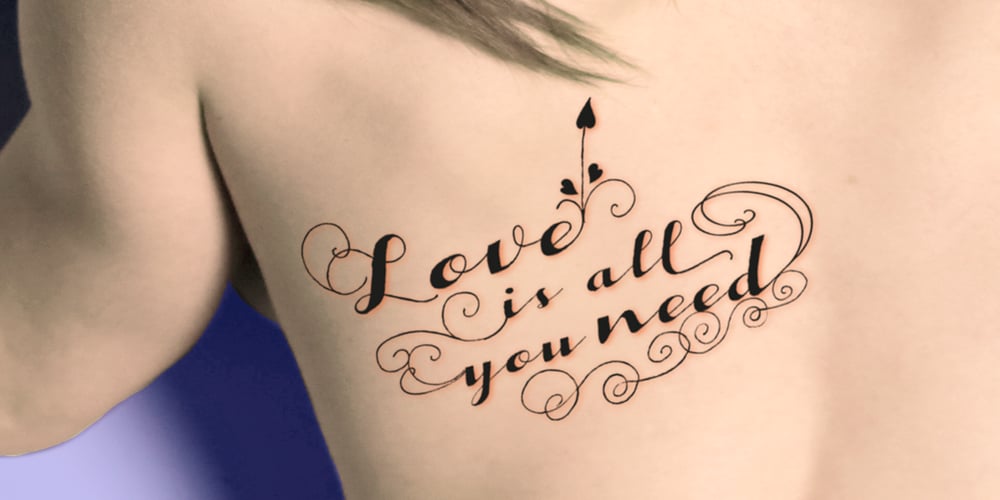
Bonna
Bonna font
Bonna Font Family was designed by Carine de Wandeleer and published by Eurotypo. Bonna contains 1 styles and family package options. Bonna and Bonna Bold is a casual calligraphy family Font with an original textured appearance that will allow you to create an effect even more authentic. It’s an exclusively Open Type release with 815 glyphs, 93 ornaments to combine with letters and decorate your text. There are plenty of options to create something unique and special with lots of possibility an infinity of combinations: standard and discretionary ligatures, several swashes and stylistics alternates for each letter, catchwords, tails that can be added to the beginning or end of each letter, and much more. These ravishing fonts have already an extended character set to support Central and Eastern as well as Western European languages. Bonna was designed to help your projects look more creative, wonderful and fascinating! Have fun with it!